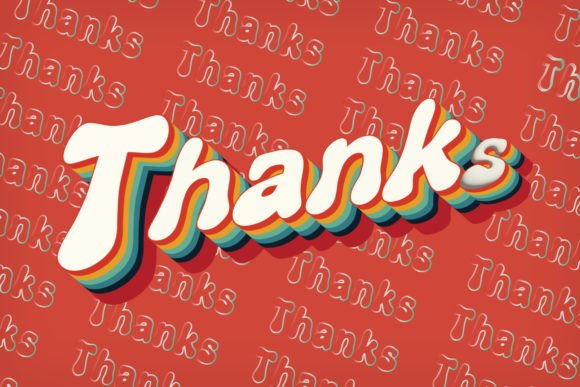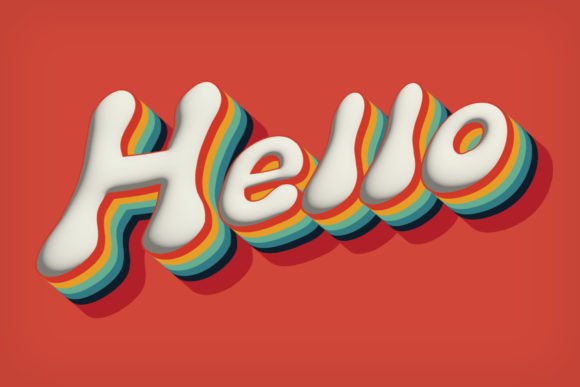
Color Font
Color is a cool, retro, and cute color font suitable for a wide spectrum of applications. From greeting cards to headlines, stickers, and greeting cards, this font will definitely elevate any creation.